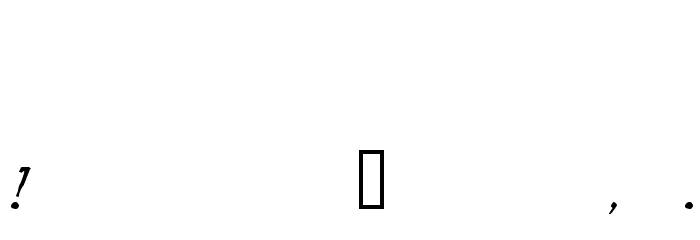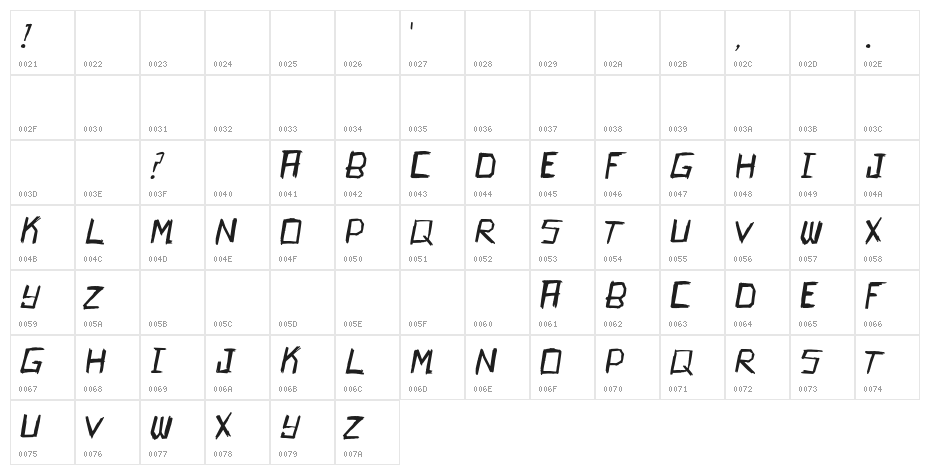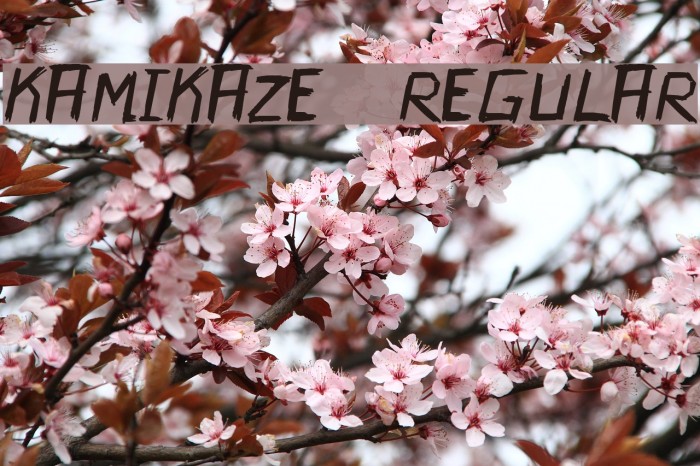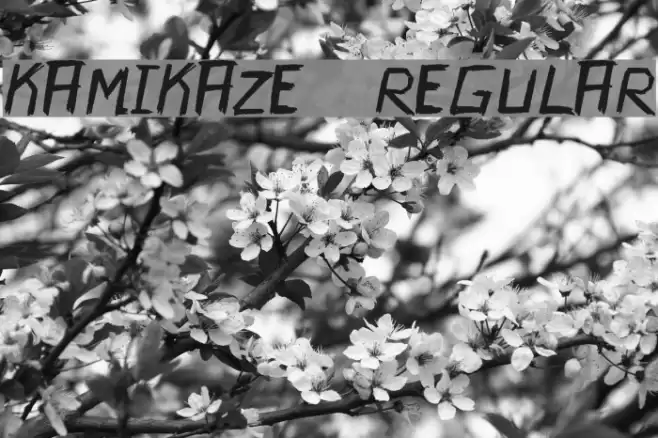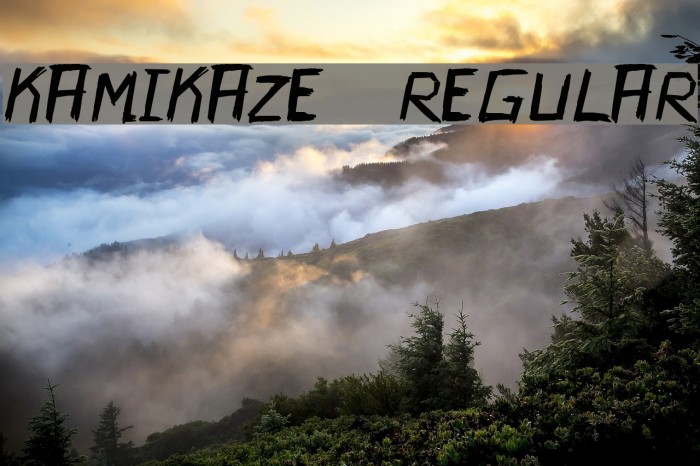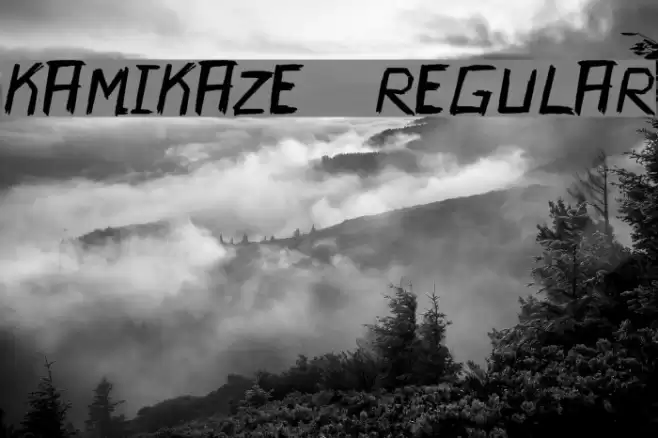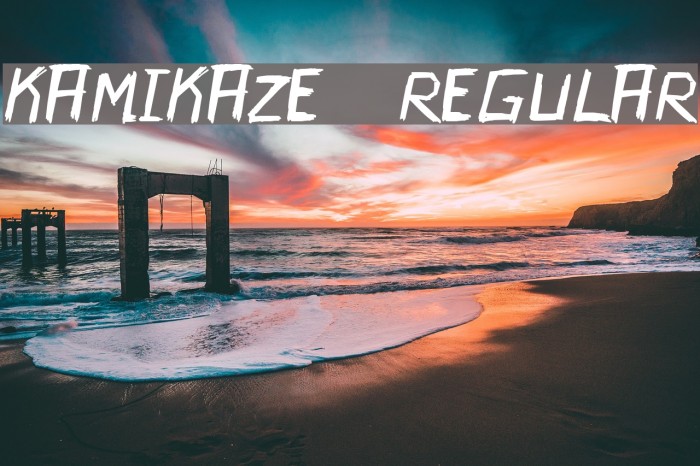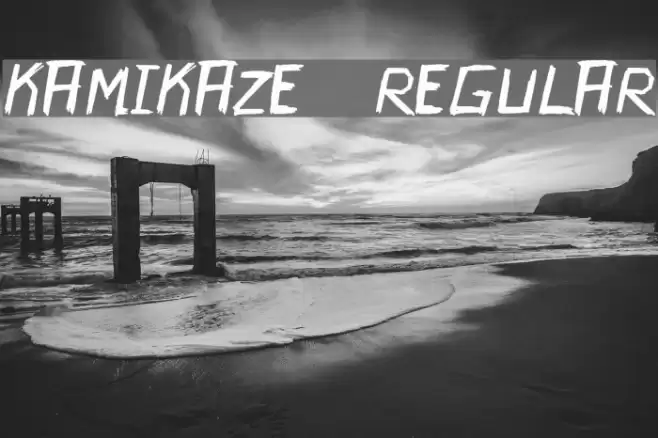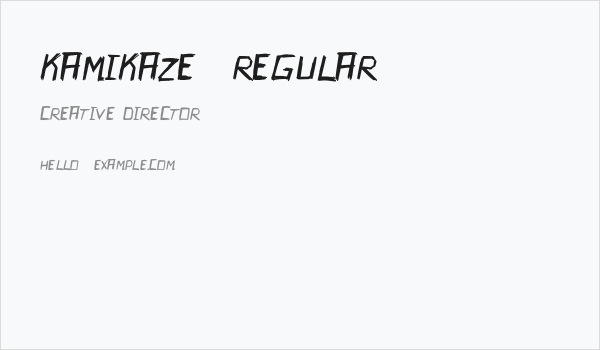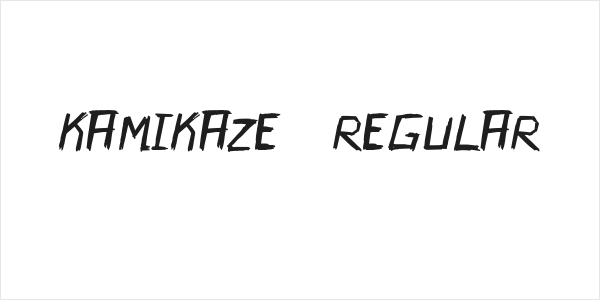
Kamikaze-Regular Font
Kamikaze-Regular Description
This font features a bold and dynamic style with sharp, angular edges and a slightly aggressive appearance. The characters are designed with a brush-like texture, giving them an energetic and raw feel. The uppercase letters are particularly striking, with a consistent slant and a sense of motion. The lowercase letters maintain the same angular style, creating a cohesive look across the typeface. The numerals and special characters follow the same design principles, ensuring uniformity throughout. The overall impression is one of strength and movement, making it suitable for projects that require a bold and impactful visual statement.